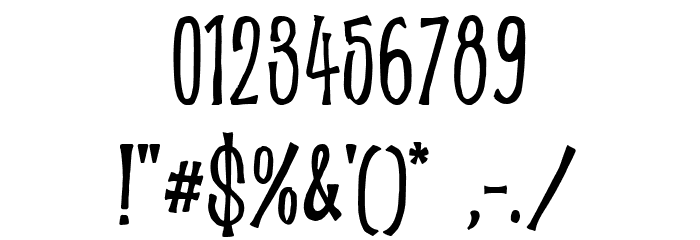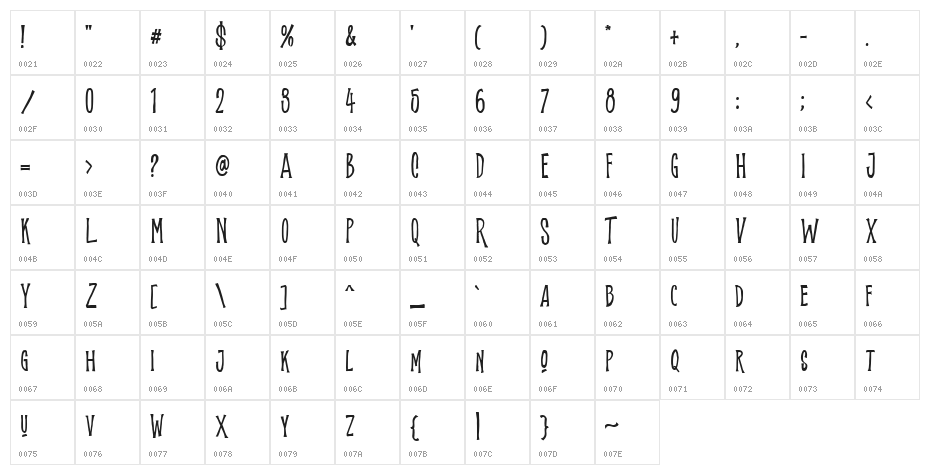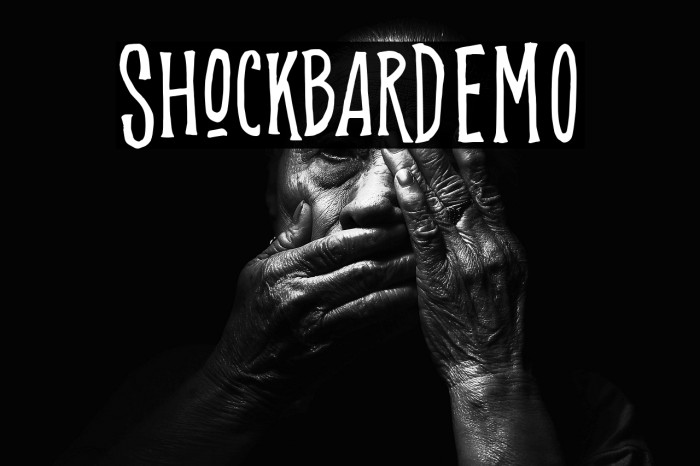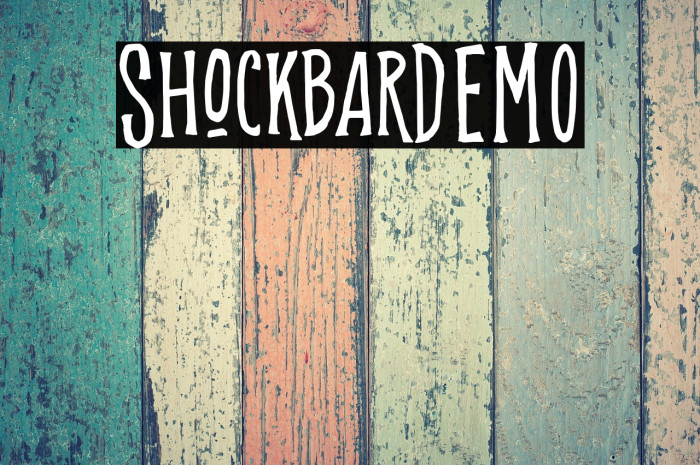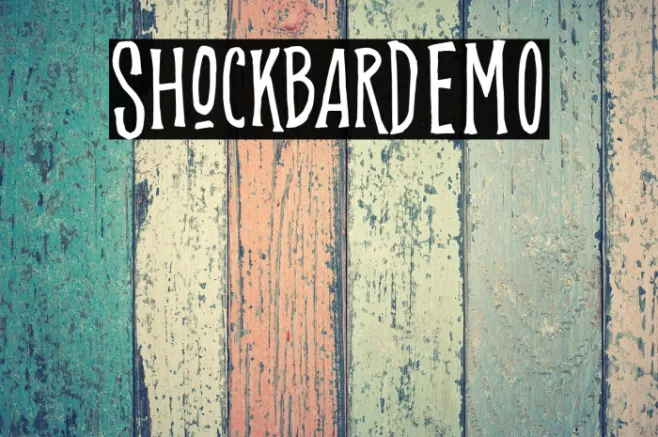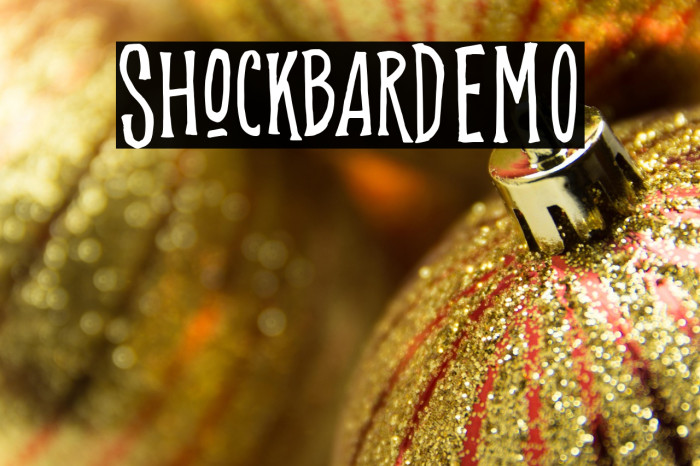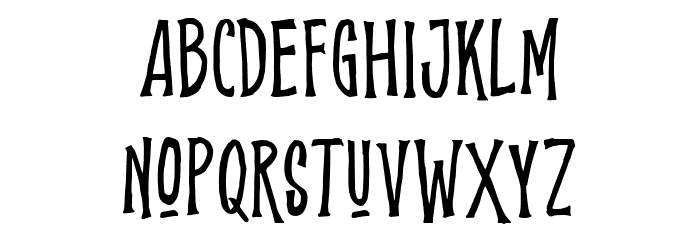
ShockbarDEMO Font
ShockbarDEMO Description
This font features a playful and dynamic style, characterized by its irregular, hand-drawn appearance. The letters have a slightly distorted, wavy form that adds a whimsical touch, making it stand out in creative projects. The uppercase and lowercase letters maintain a consistent style, with a moderate height difference between them. The numerals and special characters follow the same quirky design, ensuring a cohesive look across all text elements. This font's unique personality makes it ideal for projects that require a fun and informal tone.
| Proposed Projects | Ideal for children's books, playful branding, creative posters, and informal invitations. |